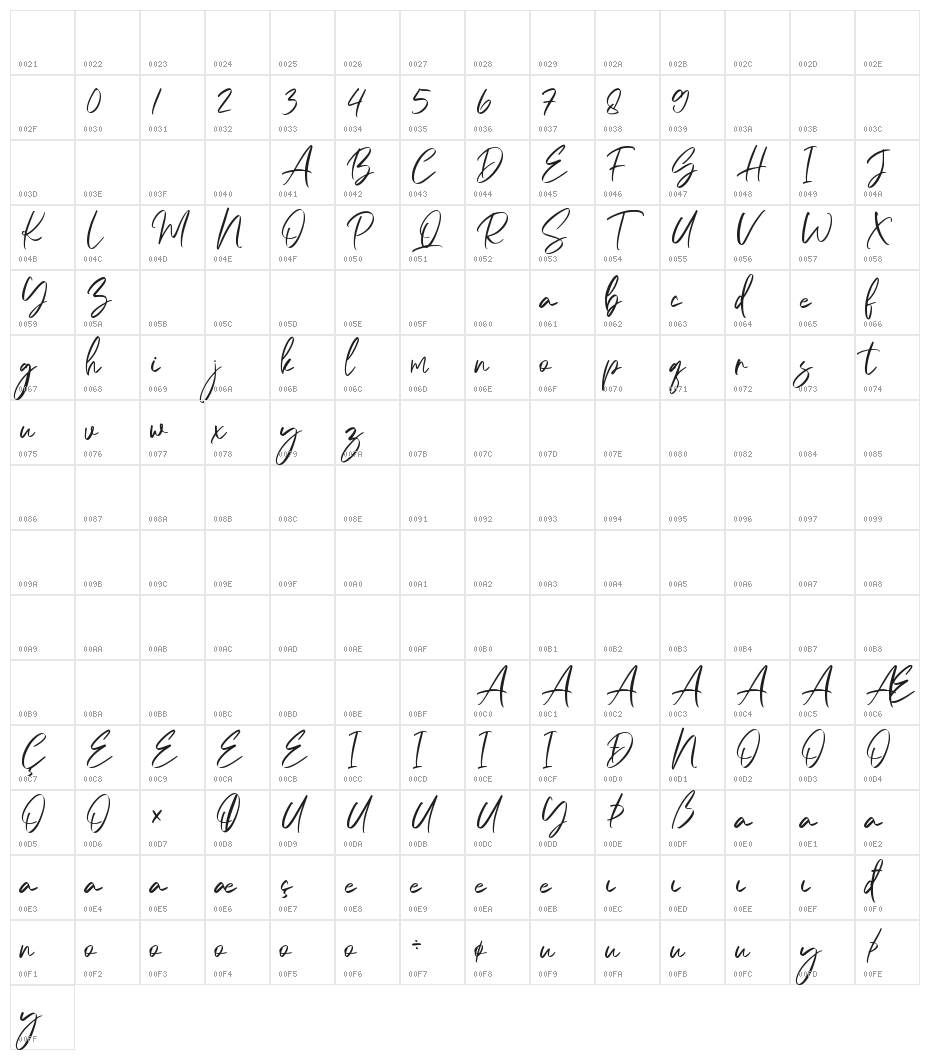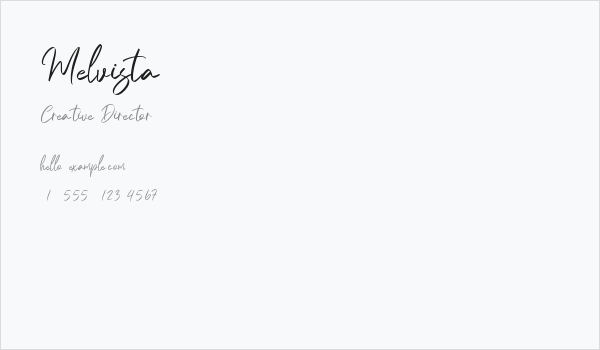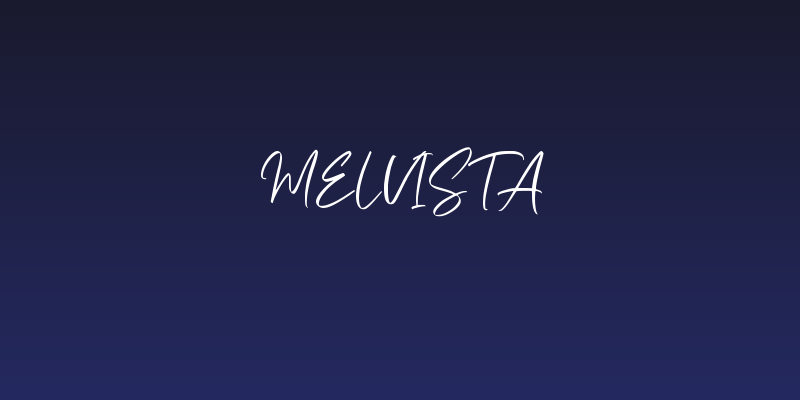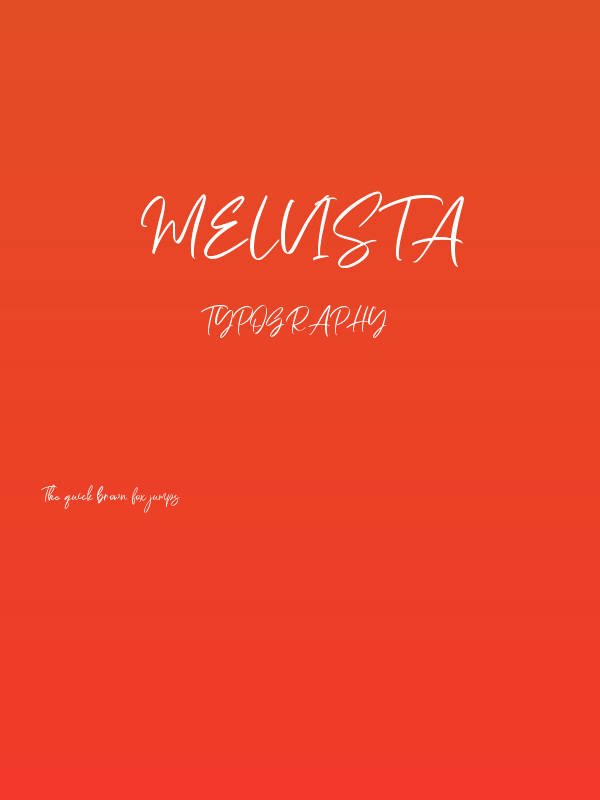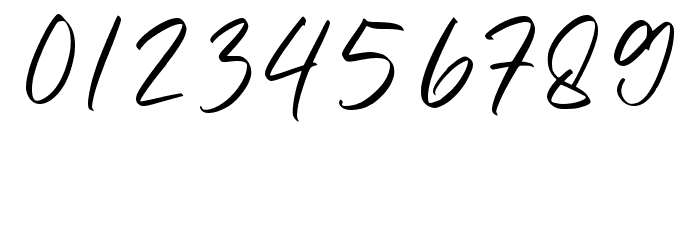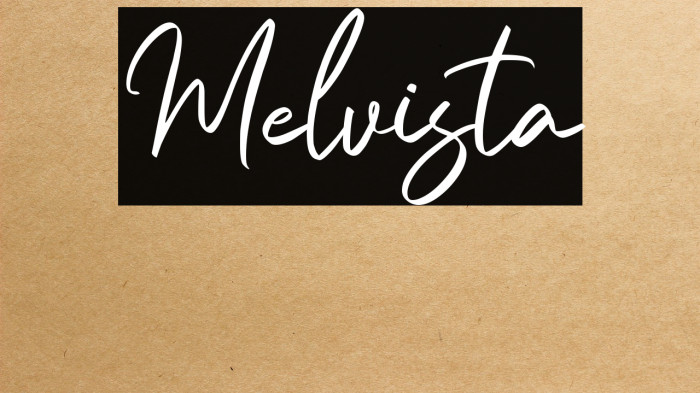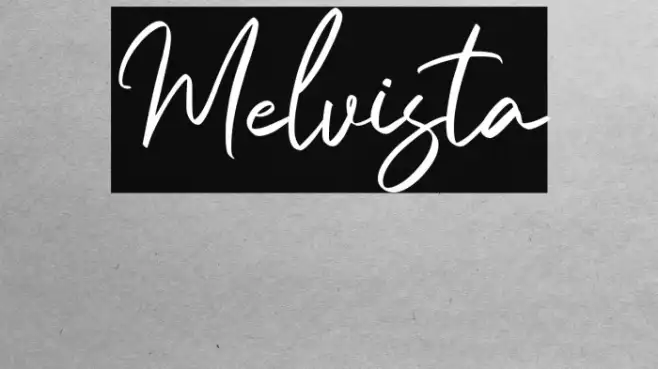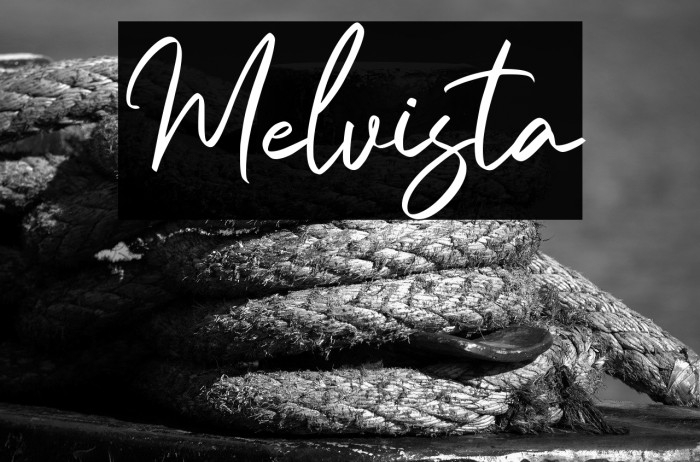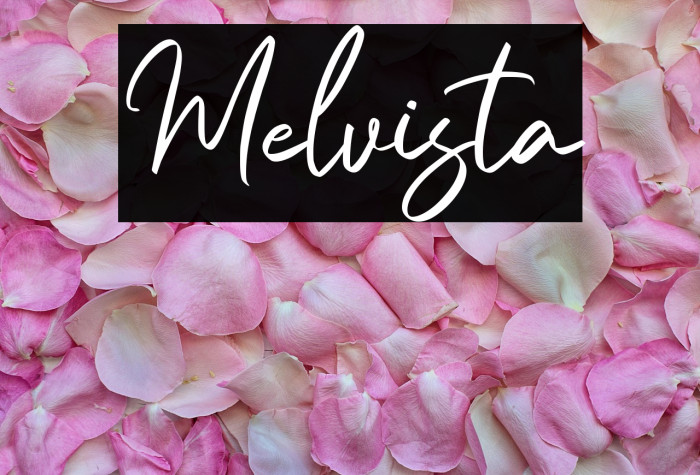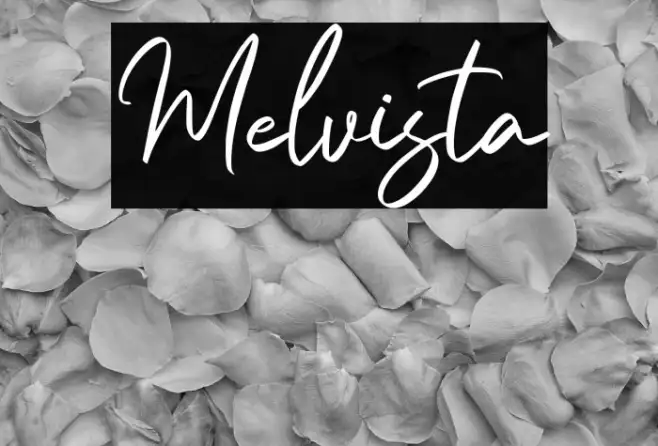
Melvista Font
This font is a stylish and elegant script that mimics the fluidity and grace of natural handwriting. The characters are connected, creating a seamless flow that enhances its cursive nature. The uppercase letters are slightly more structured, providing a nice contrast to the more freeform lowercase letters. The numerals and special characters maintain the same fluid style, ensuring consistency across all text. The strokes vary in thickness, adding a dynamic and lively feel to the text. This font is perfect for projects that require a personal touch or an artistic flair.
| Proposed Projects | Ideal for wedding invitations, greeting cards, personal branding, and artistic projects. |